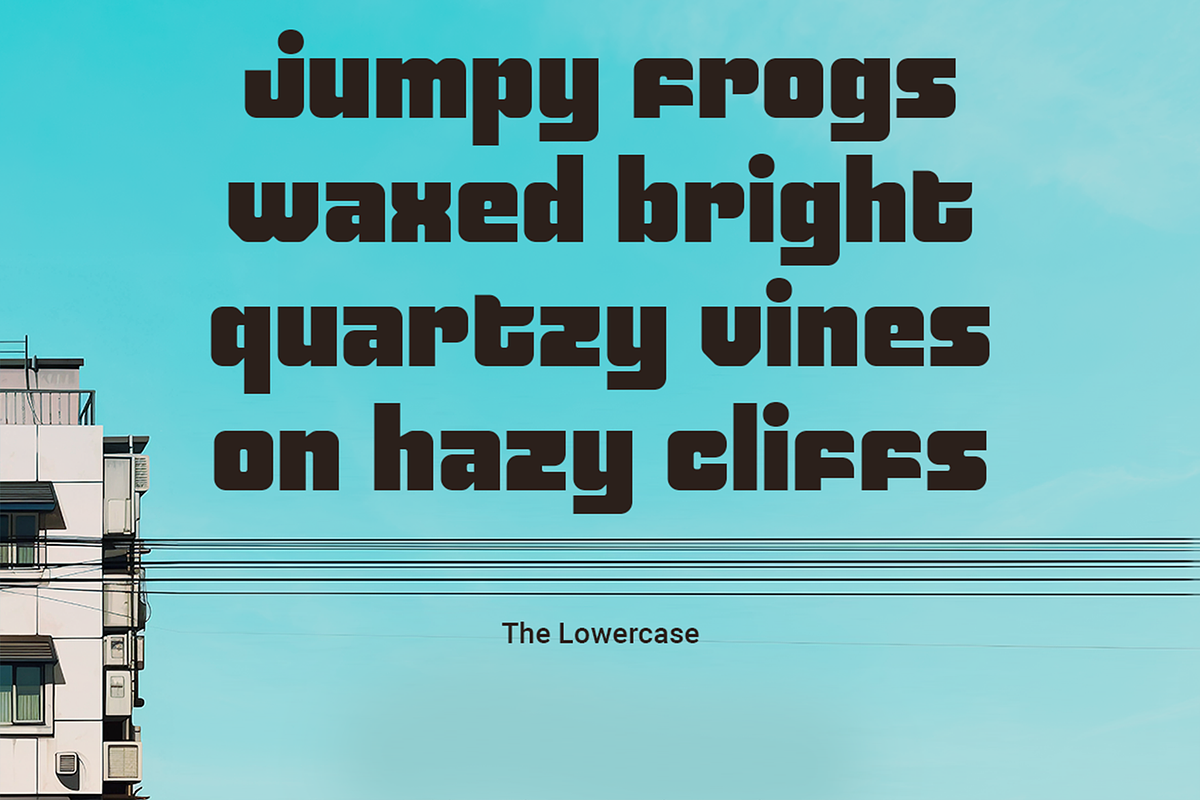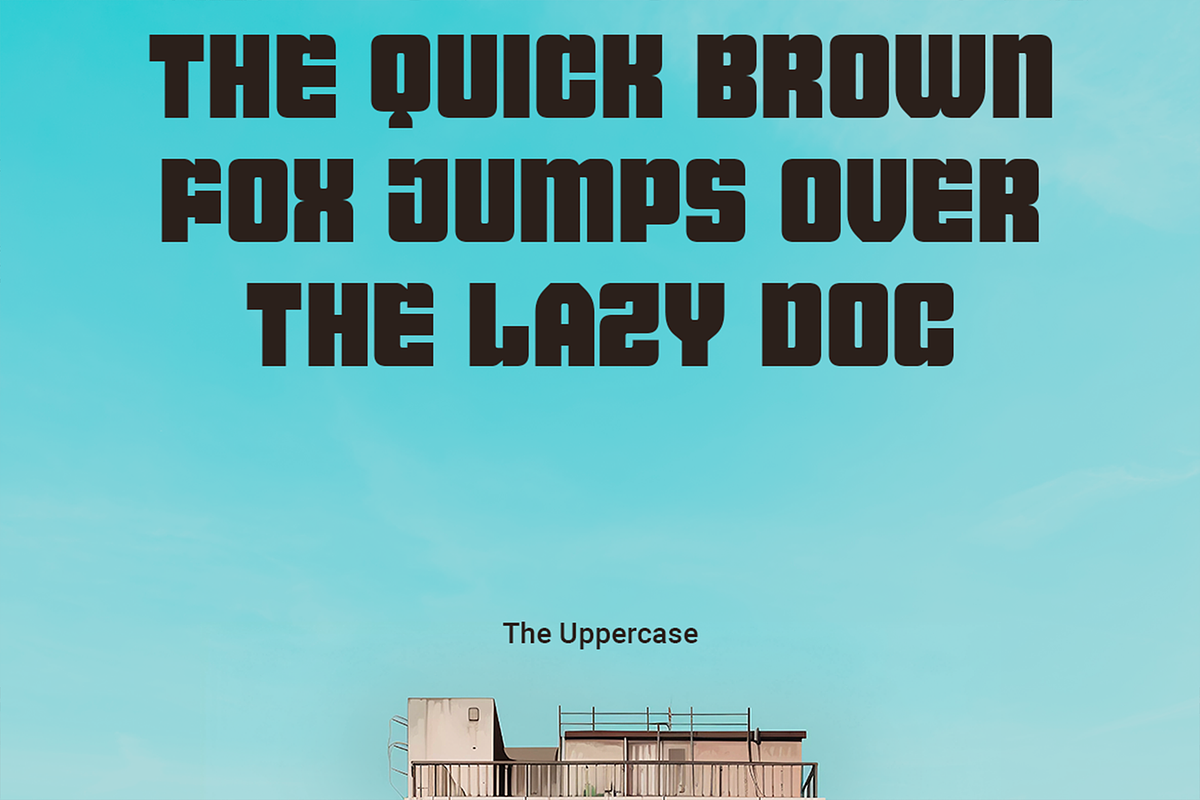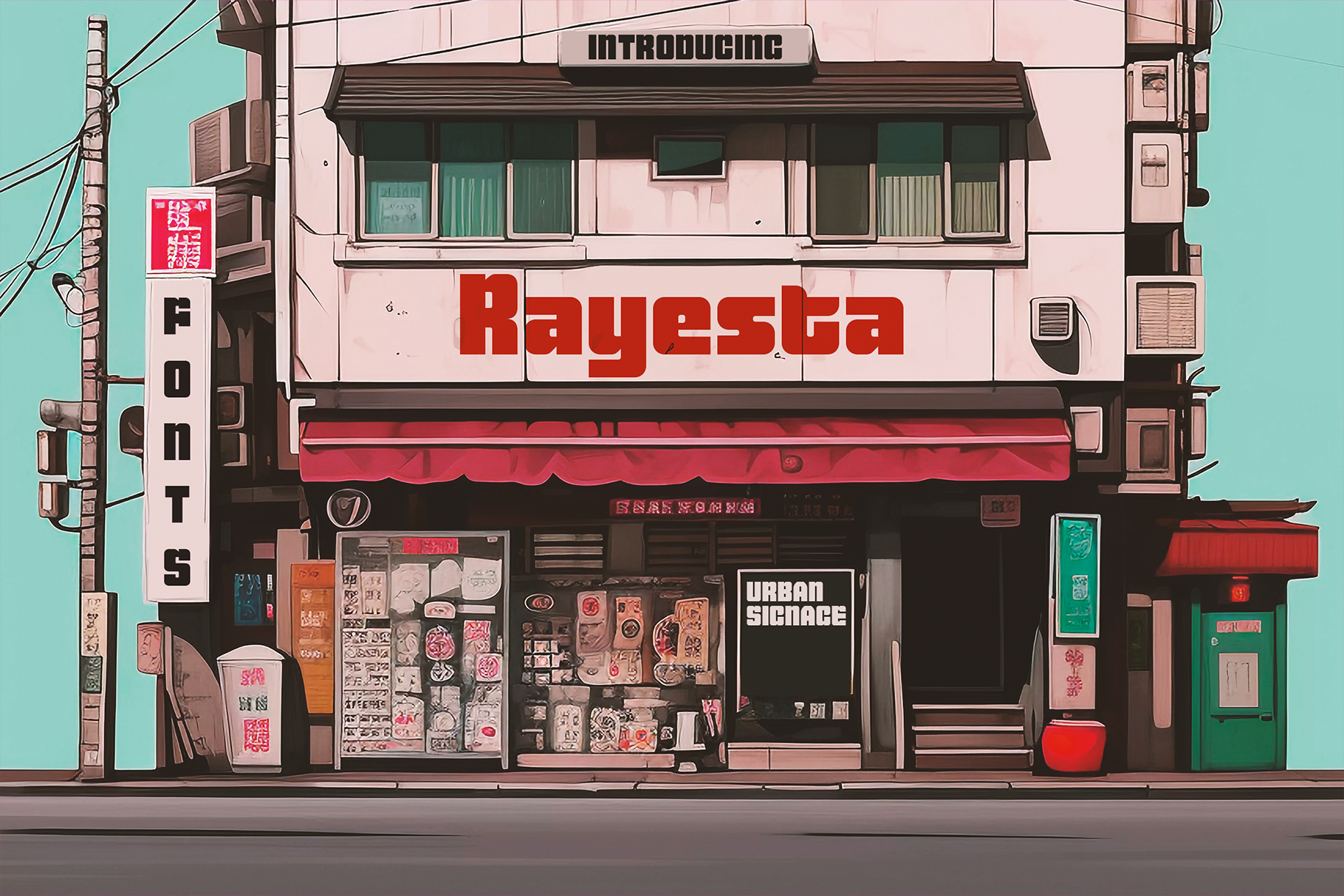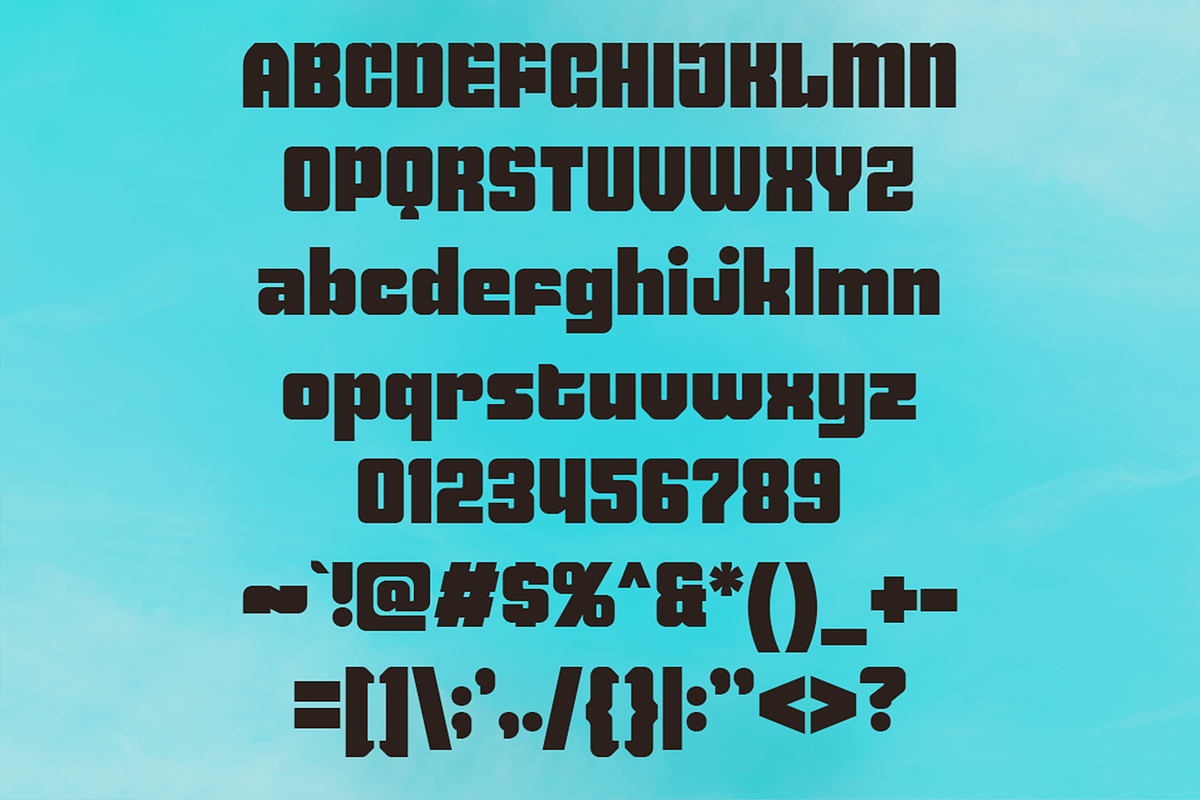
Rayesta - Retro Futuristic Fonts
Illuminate Your Designs with Rayesta – The Bold Retro-Futuristic Font!
Step into the future with Rayesta, a strikingly bold typeface inspired by the neon-lit cityscapes and high-tech environments of futuristic games. Designed to capture the essence of a vibrant, sci-fi metropolis, Rayesta brings a dynamic edge to your visuals.
Whether it’s the eye-catching signage of a futuristic shop, the dazzling neon displays in a game, or any design that demands a bold statement, Rayesta delivers with its commanding presence and retro-futuristic flair.
- Neon city signs and game interfaces
- Futuristic shop and event signage
- Retro-futuristic branding and graphics
- Bold headlines and eye-catching visuals
With its dynamic lines and commanding presence, Rayesta transforms your projects into a dazzling display of bold design. Whether you're crafting vibrant game worlds or immersive cityscapes, this font delivers a powerful, futuristic look that stands out.
Brighten your designs with Rayesta – Boldly Bridging Retro and Future!